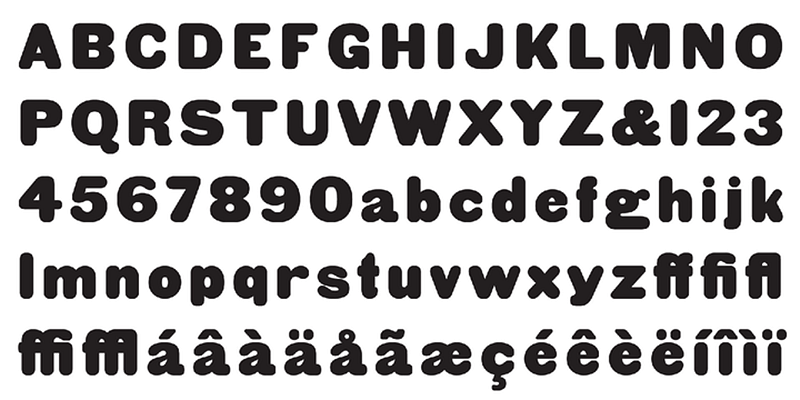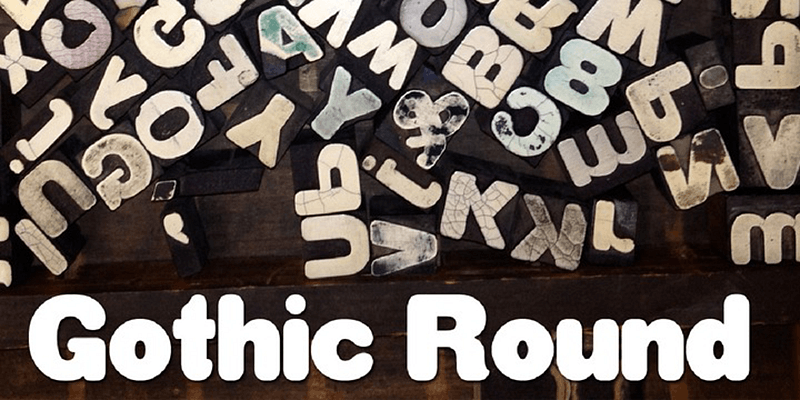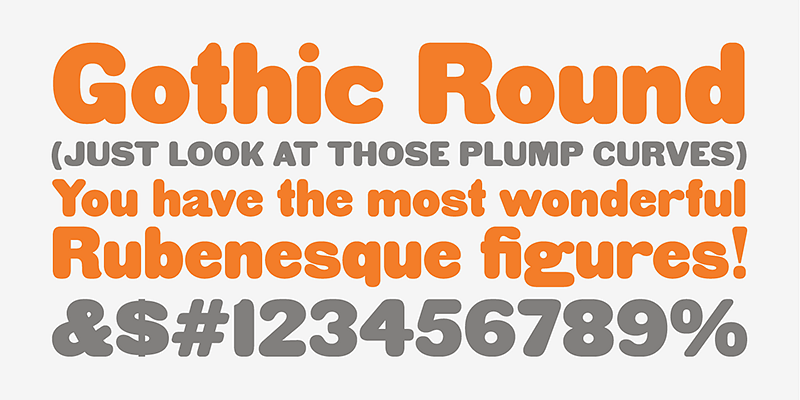
HWT Gothic Round was first seen as wood type by the George Nesbitt Co. in 1838. Digitized by Miguel Sousa from a variety of historical sources, resulted in a contemporary font with a 175 year history.